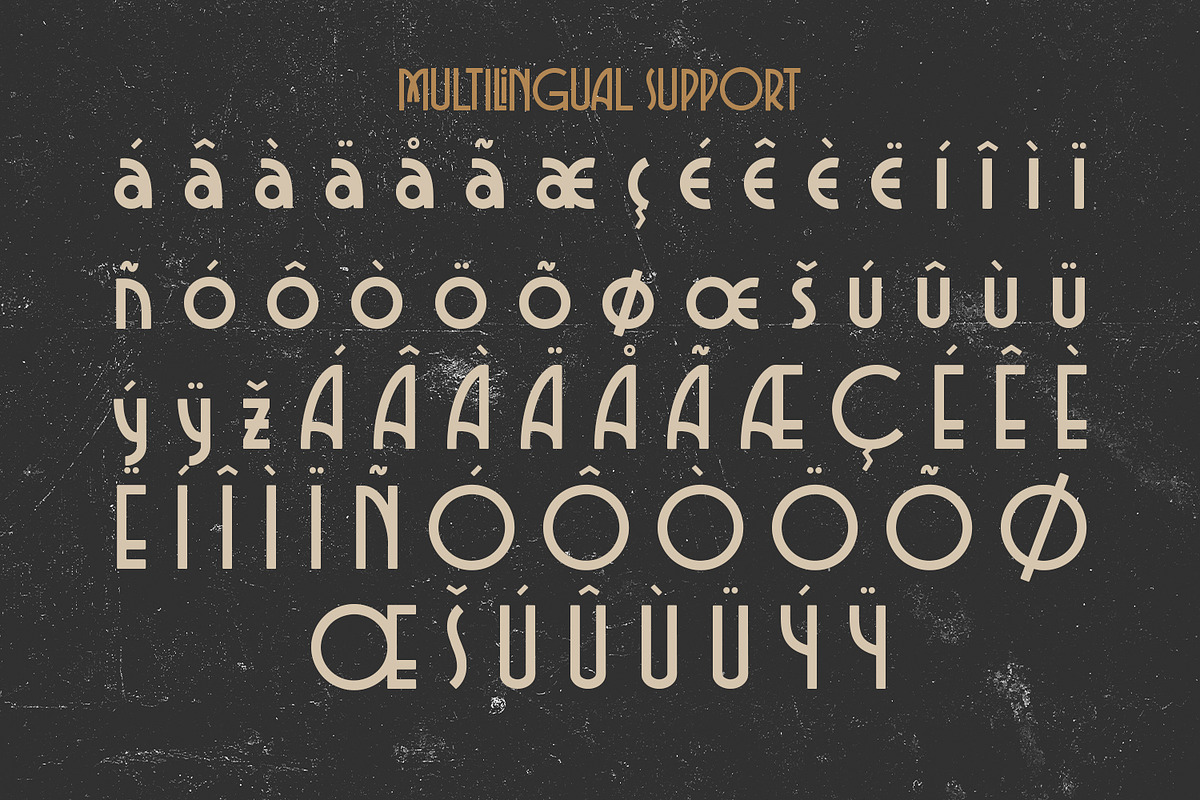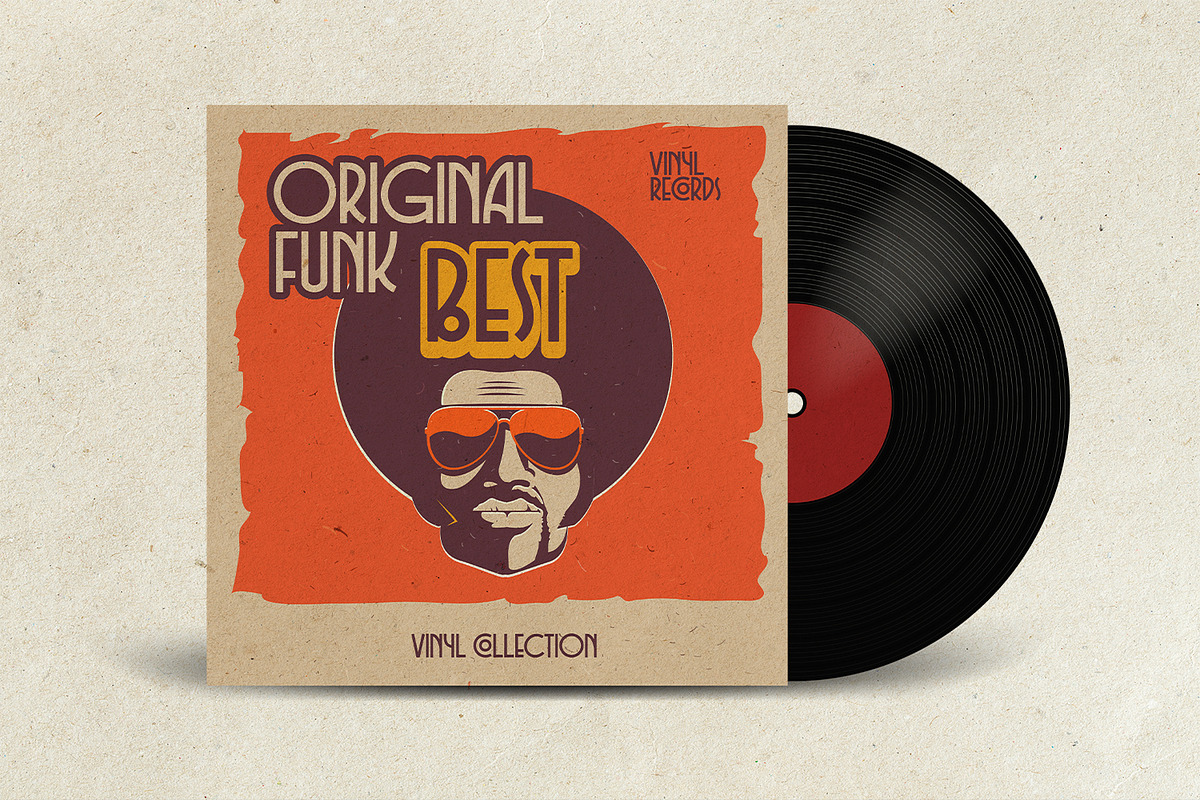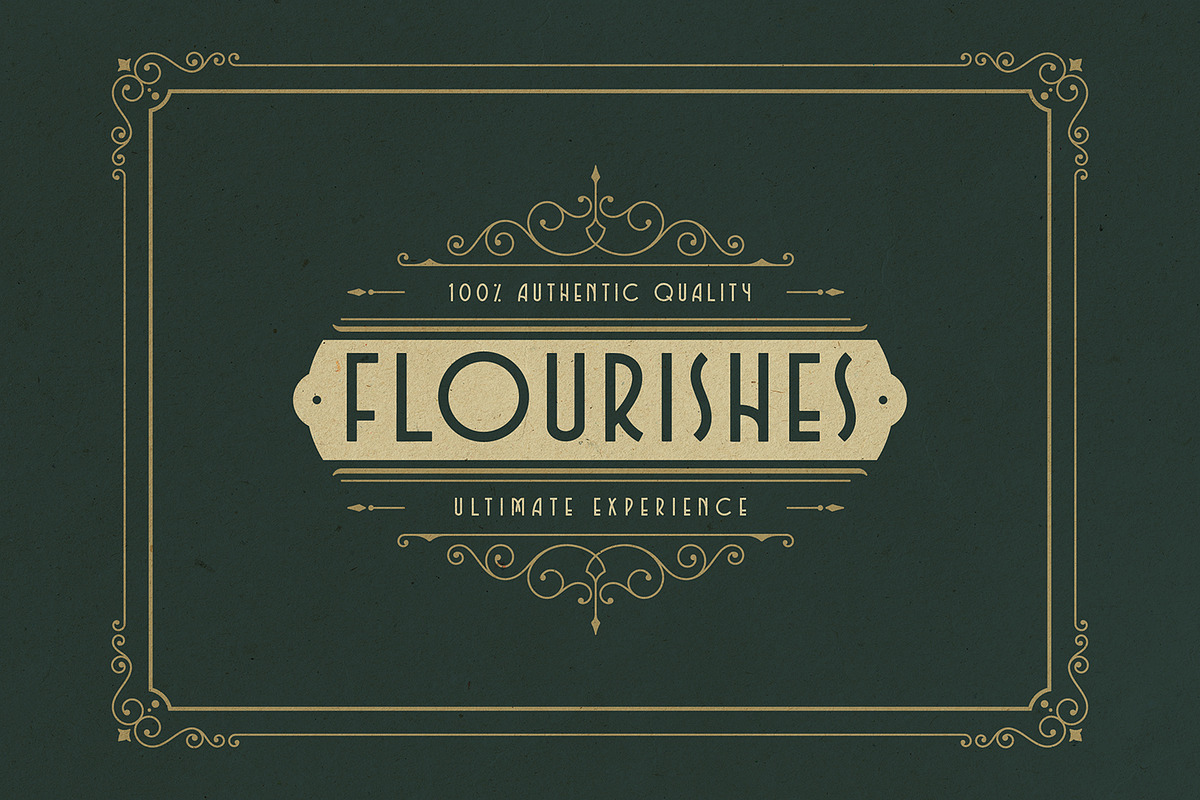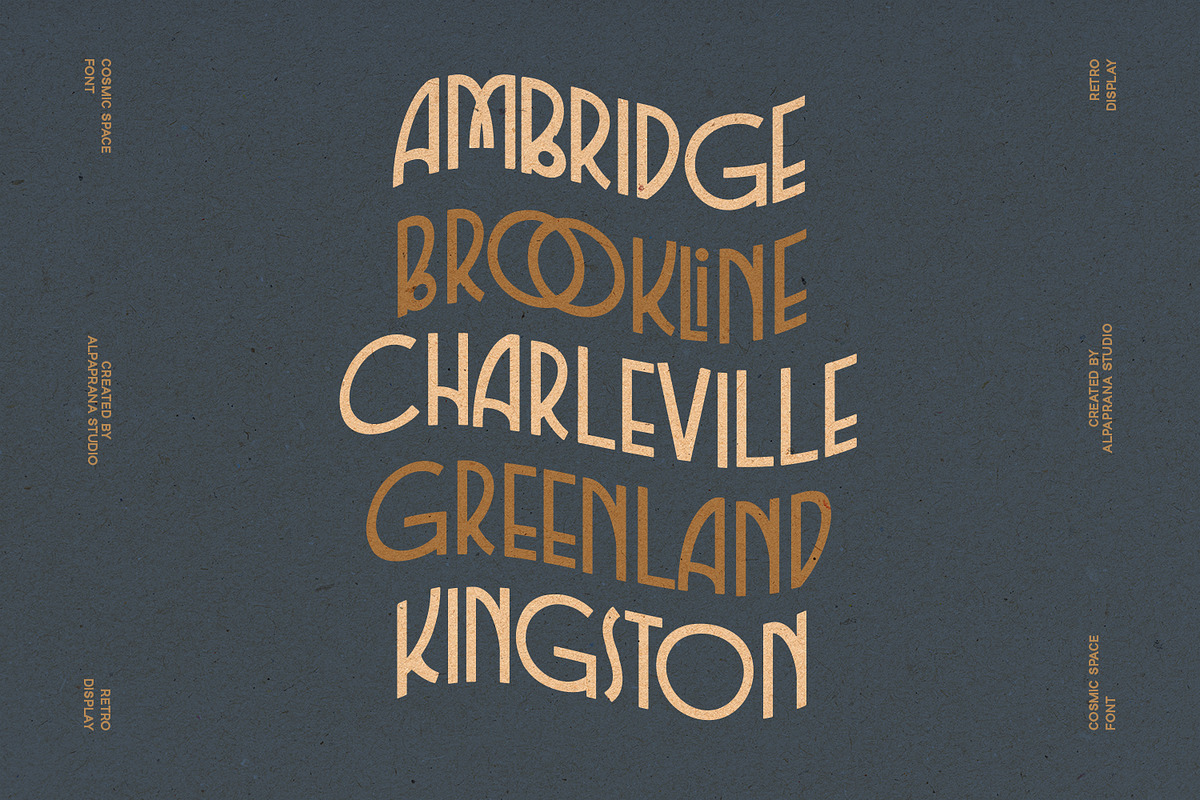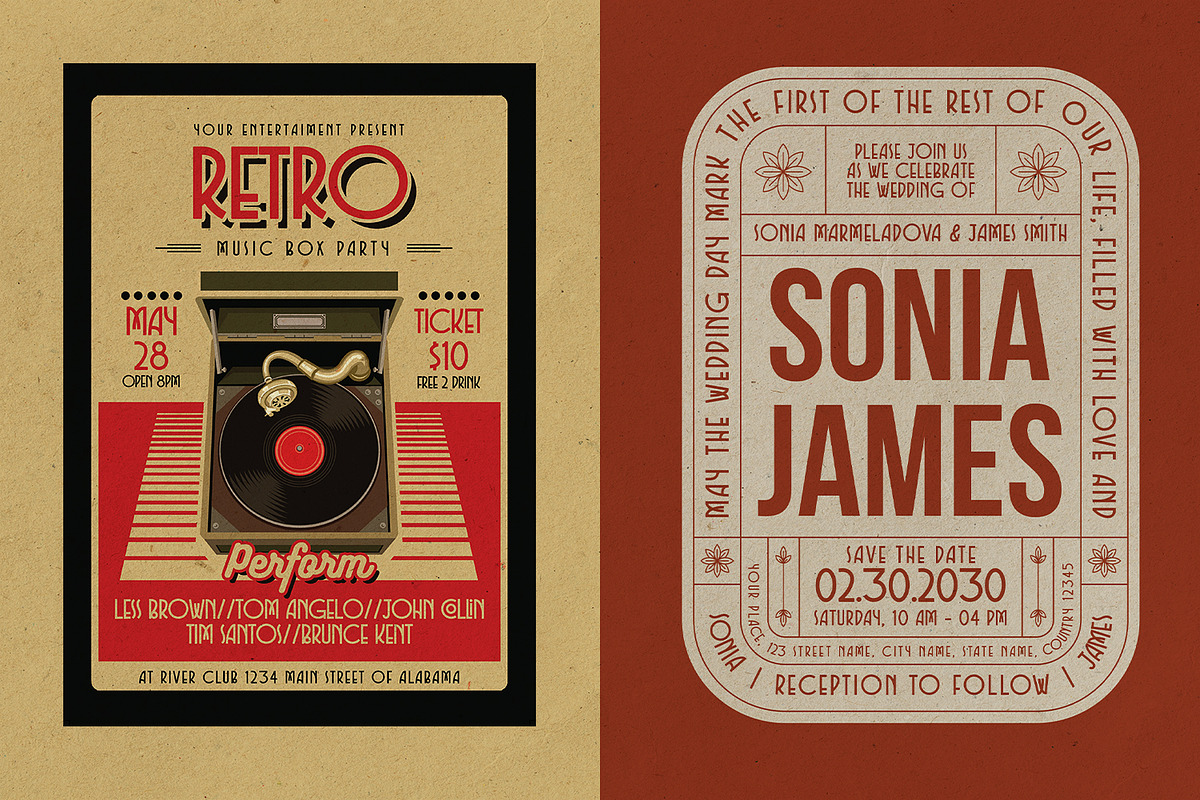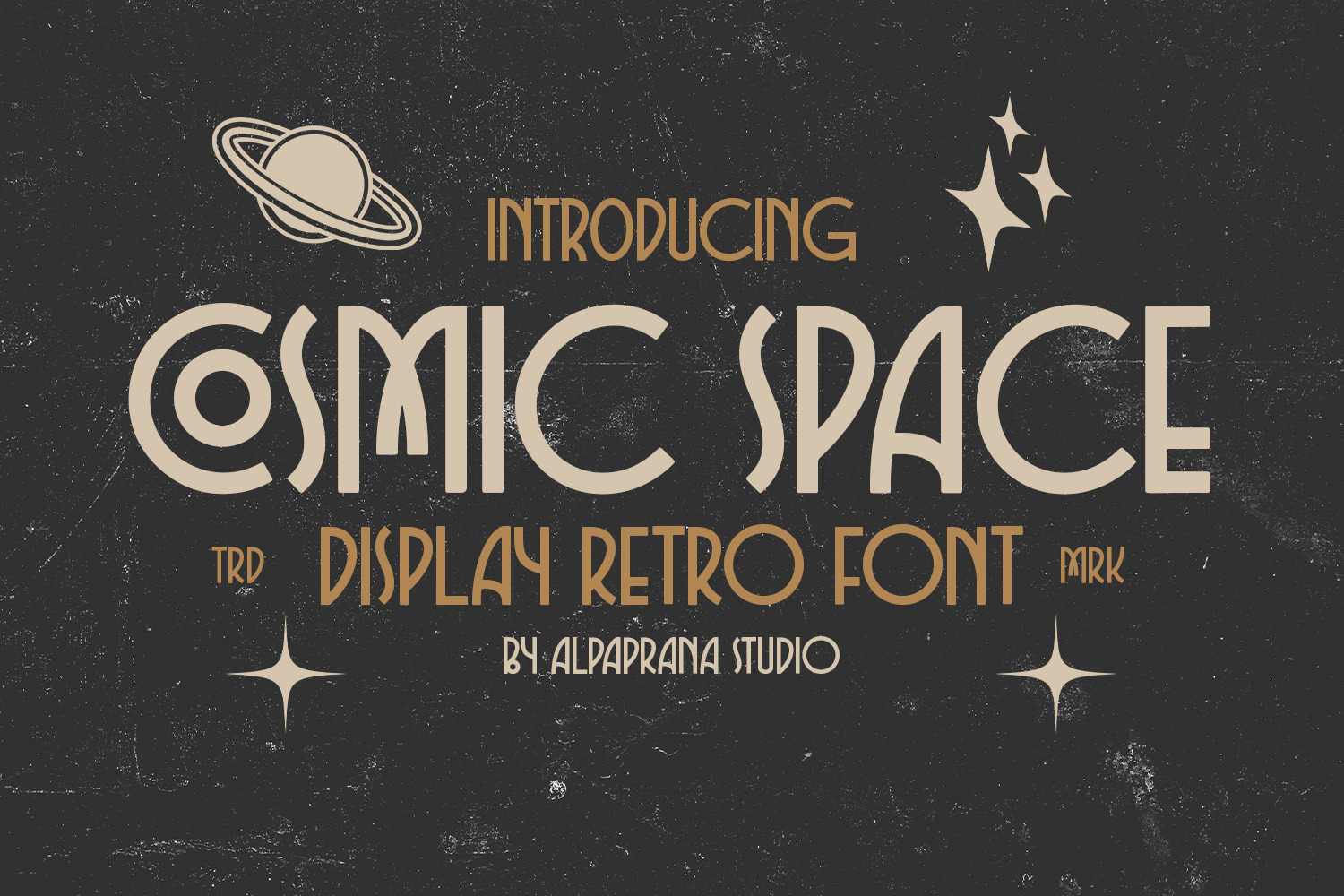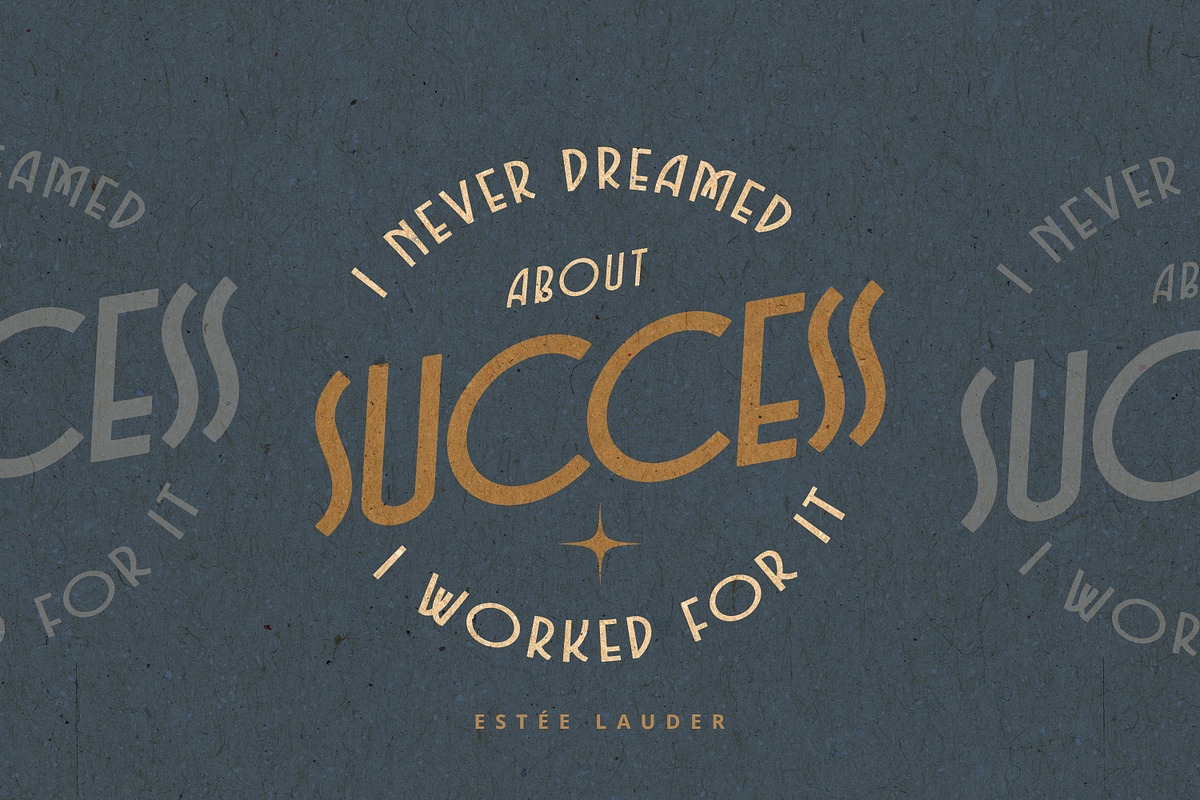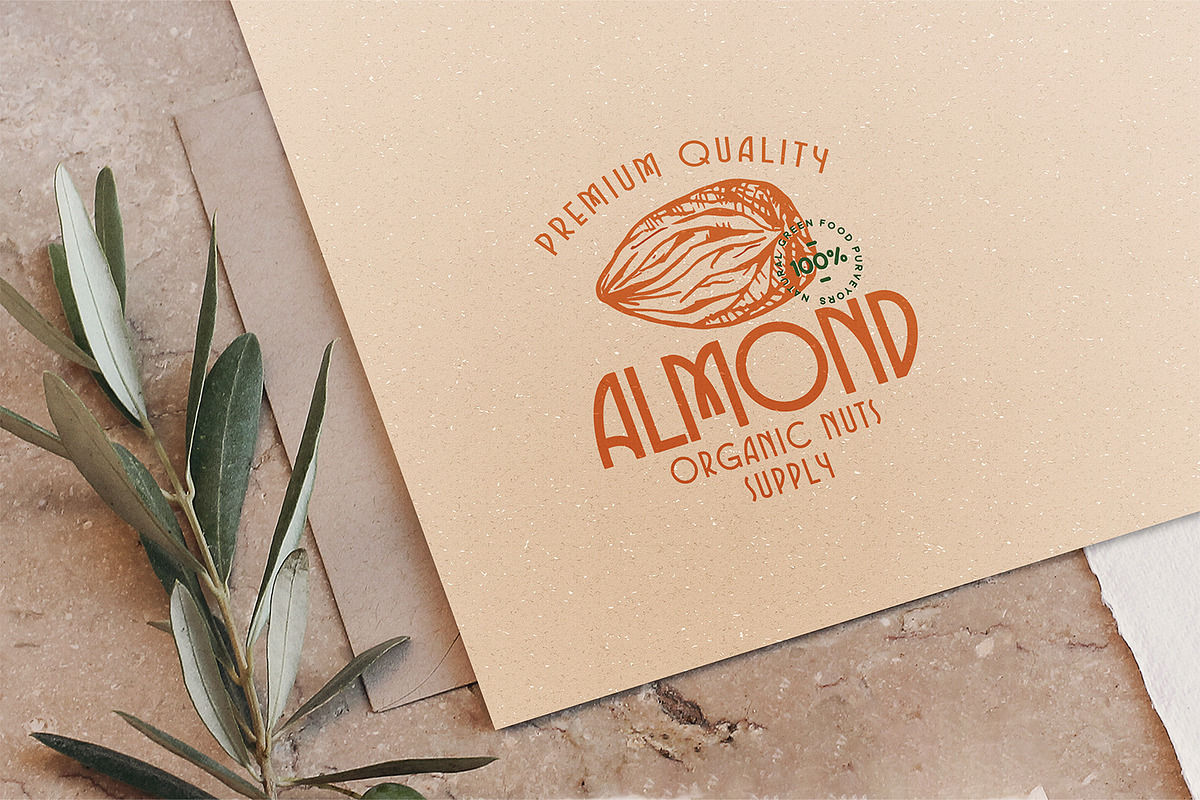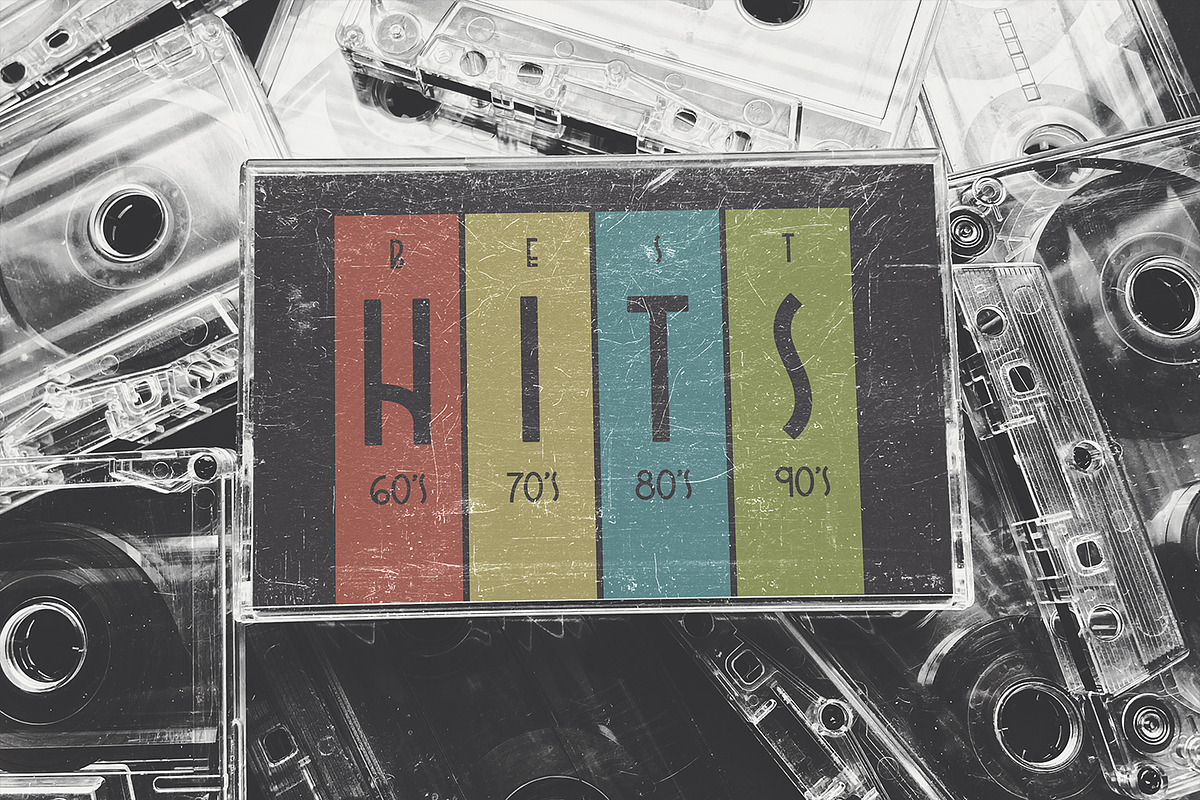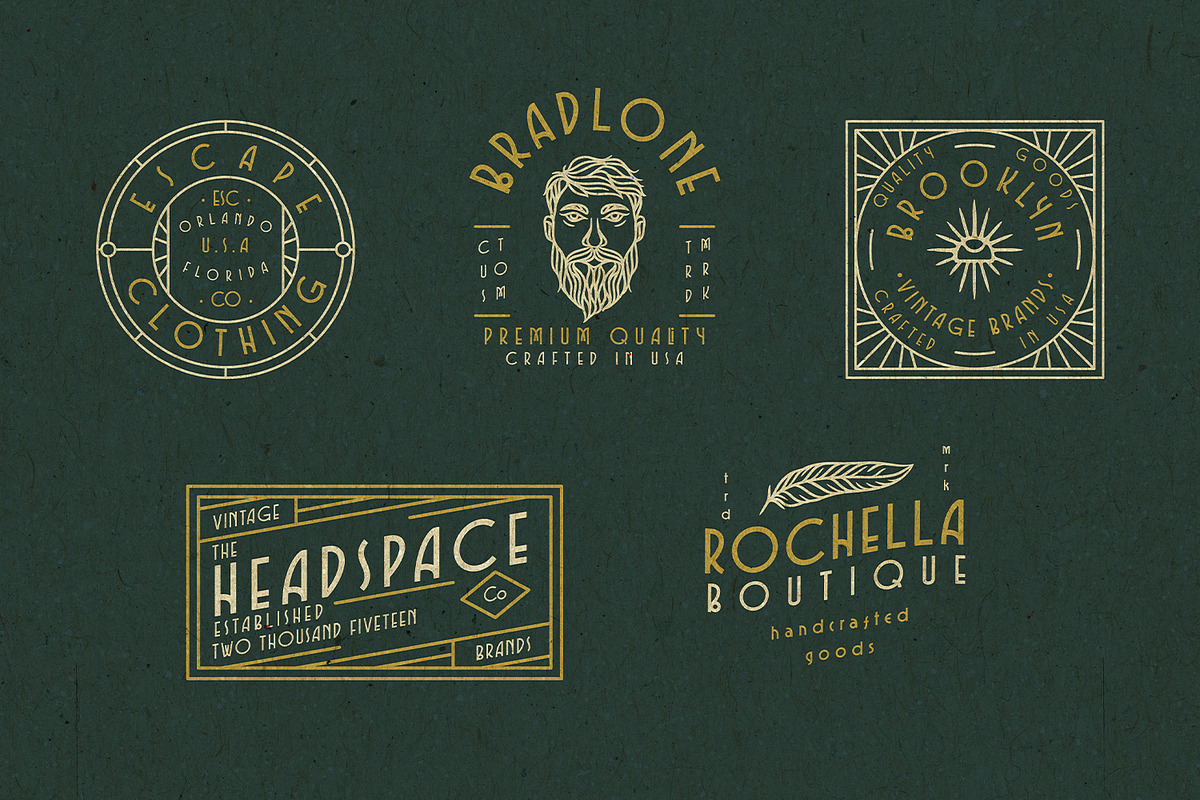
Cosmic Space - Retro Font
Cosmic Space is a rustic retro font with authentic and modern feels. It will be perfectly used for Branding, Logo Design, Lettering, Logotype, Clothing, Poster, magazine, packaging, posters, shopping bags, t-shirts, book covers, photography, special events and other design project.